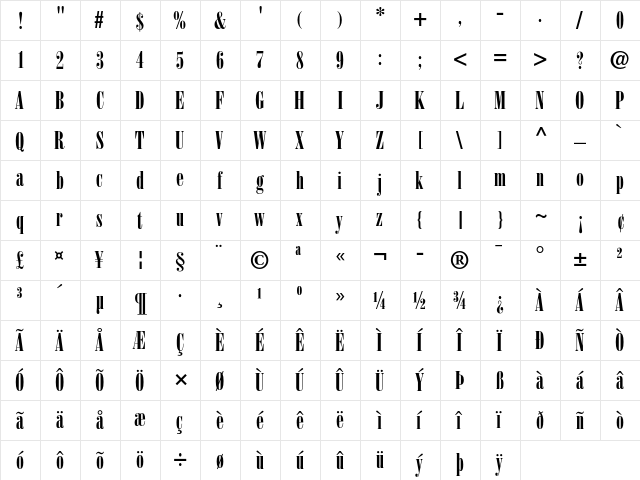
Bodoni Poster Compressed
Design Context for Bodoni Typeface
Bodoni takes a measured approach to typography — its balanced proportions and neutral character make it a reliable workhorse for both digital and print work.